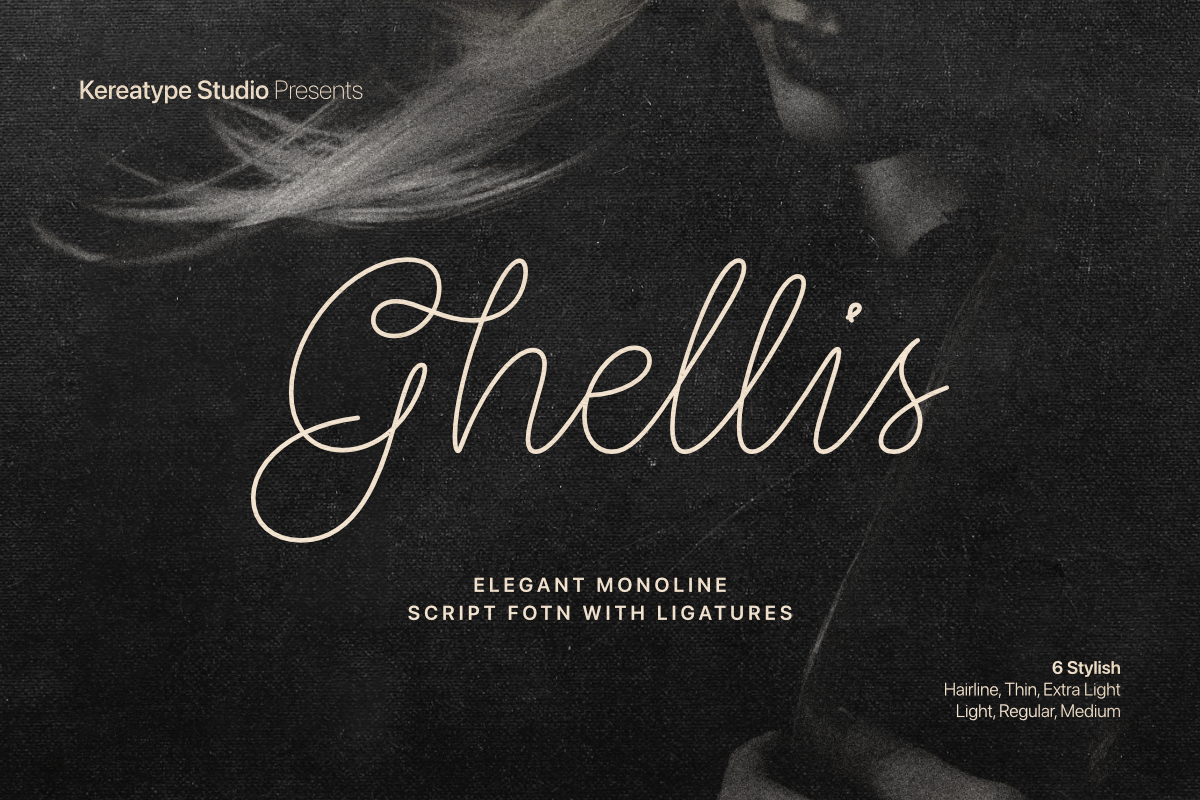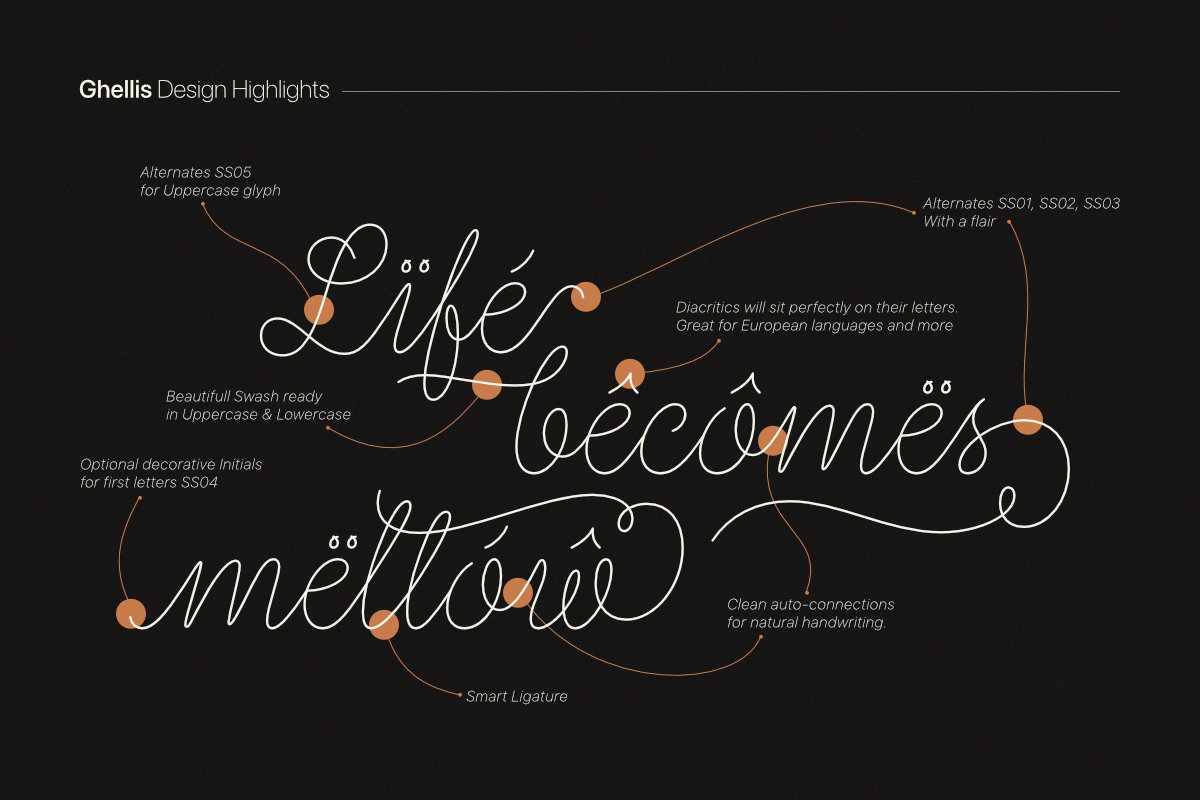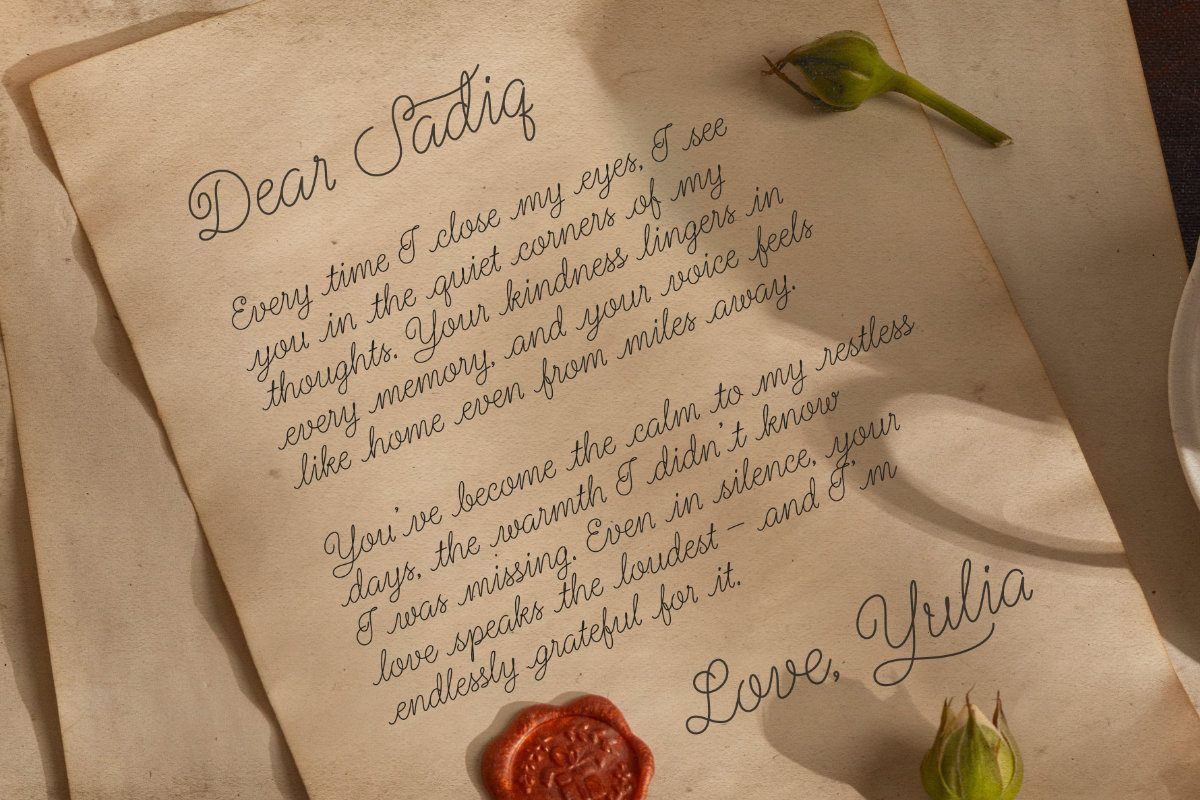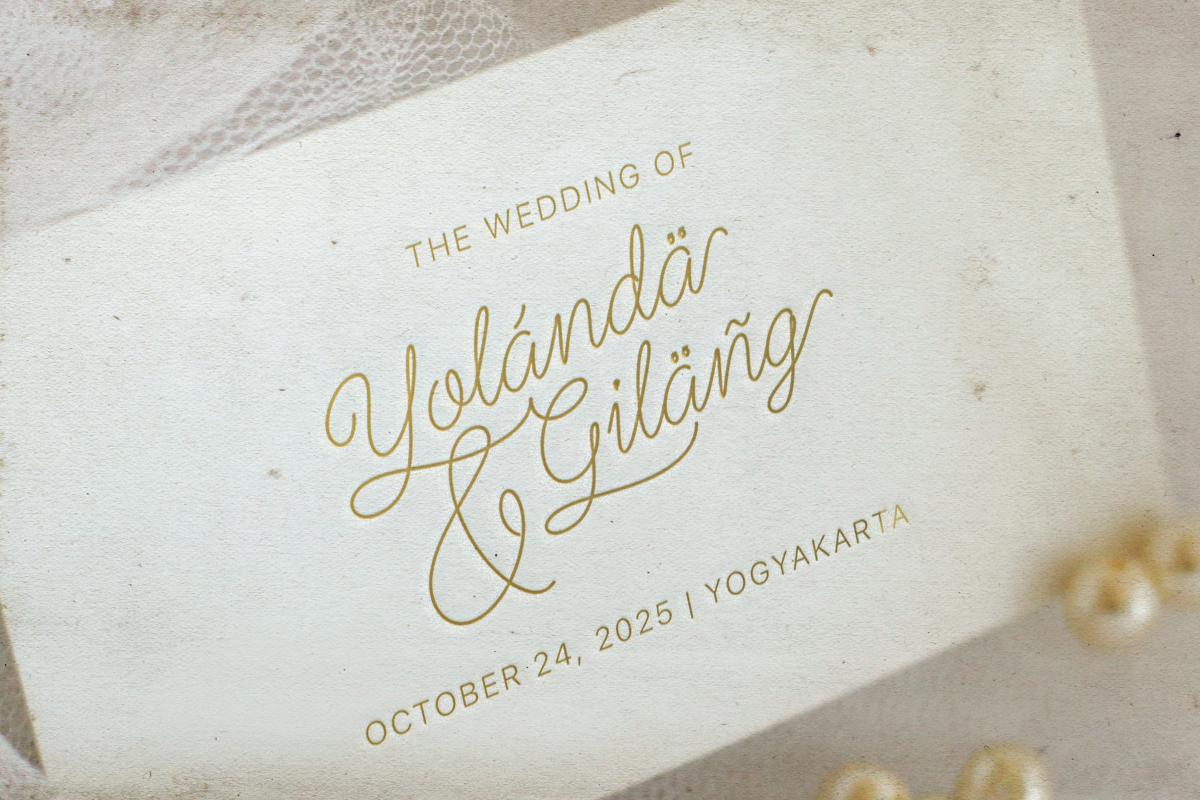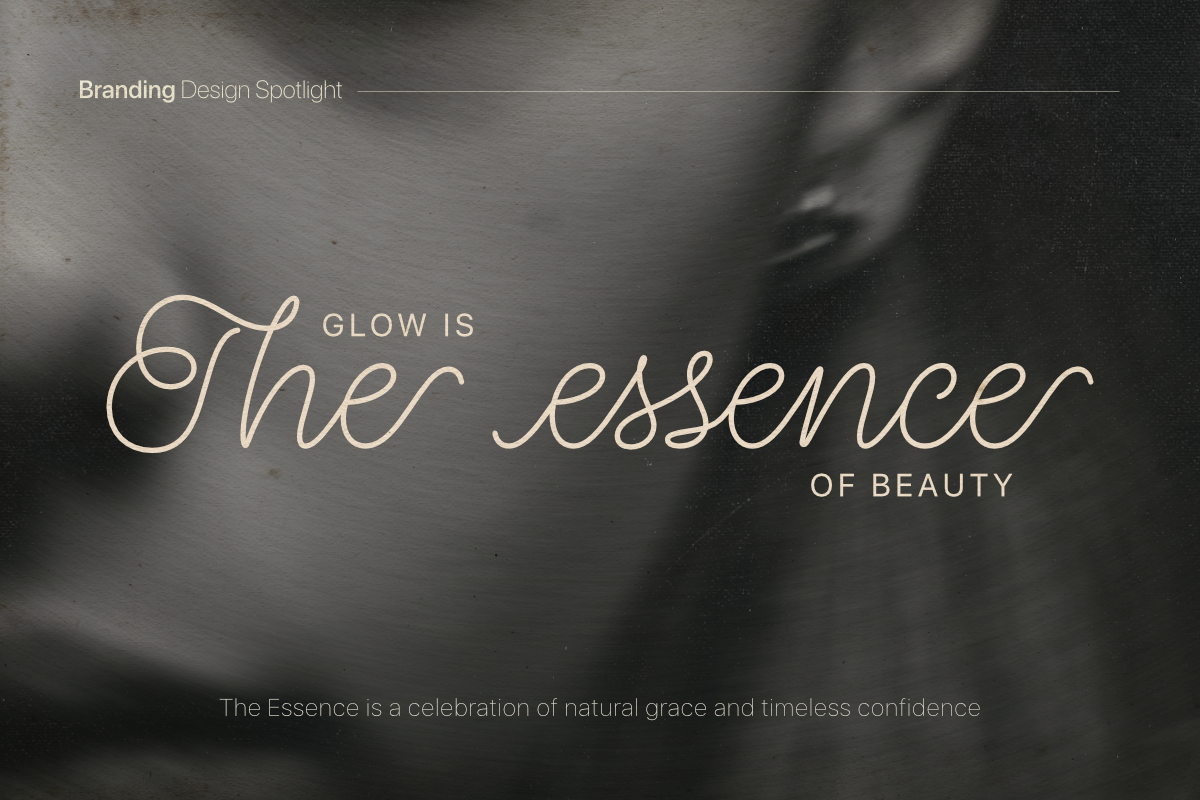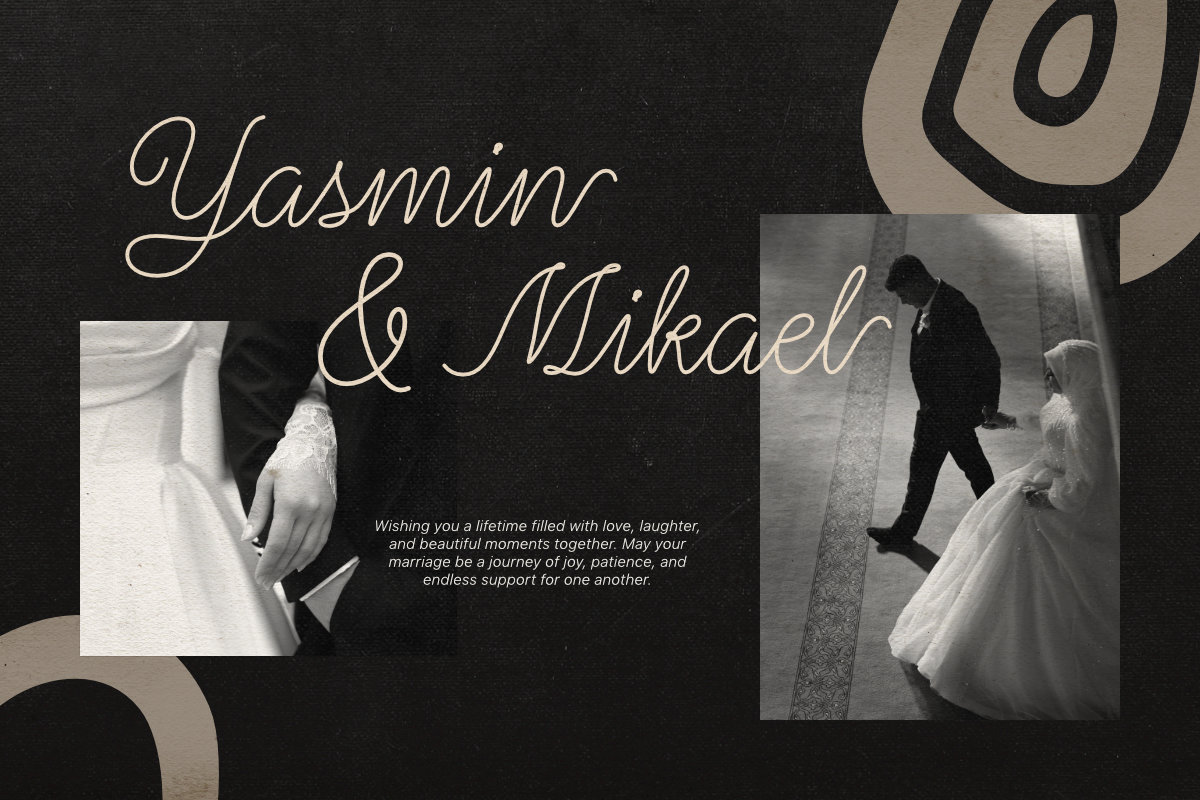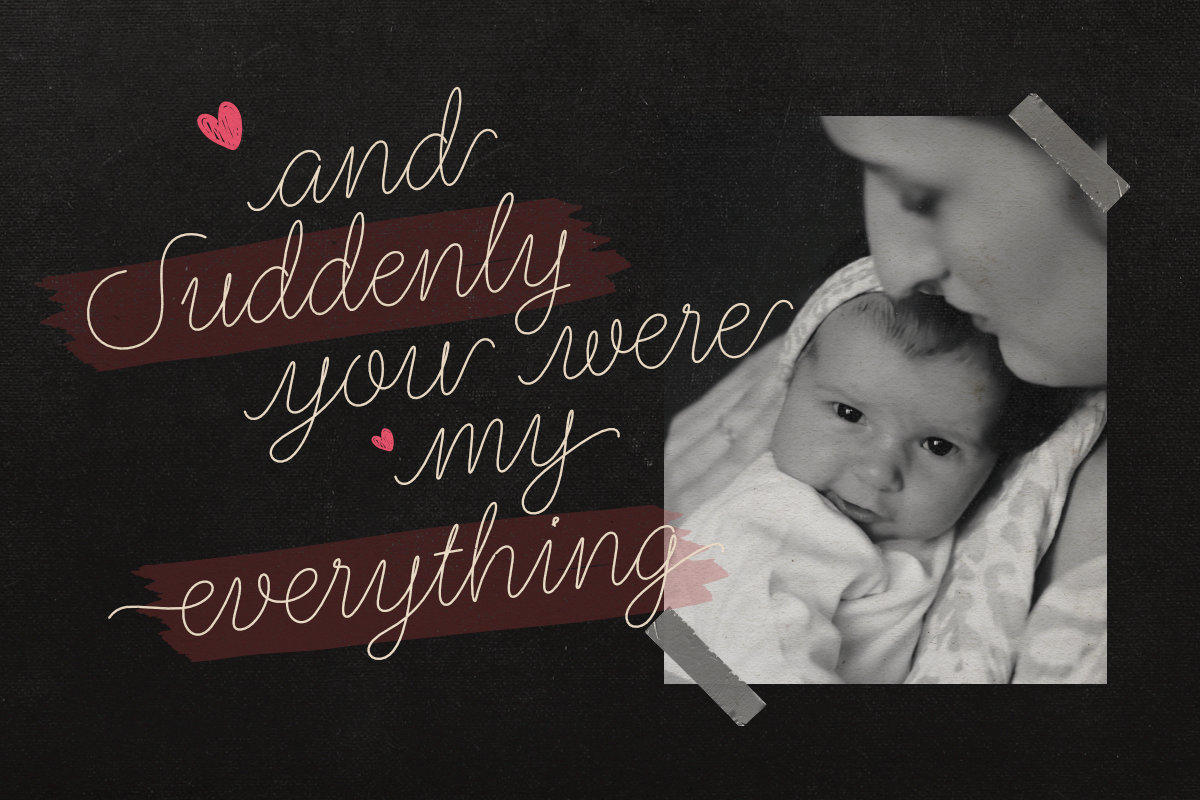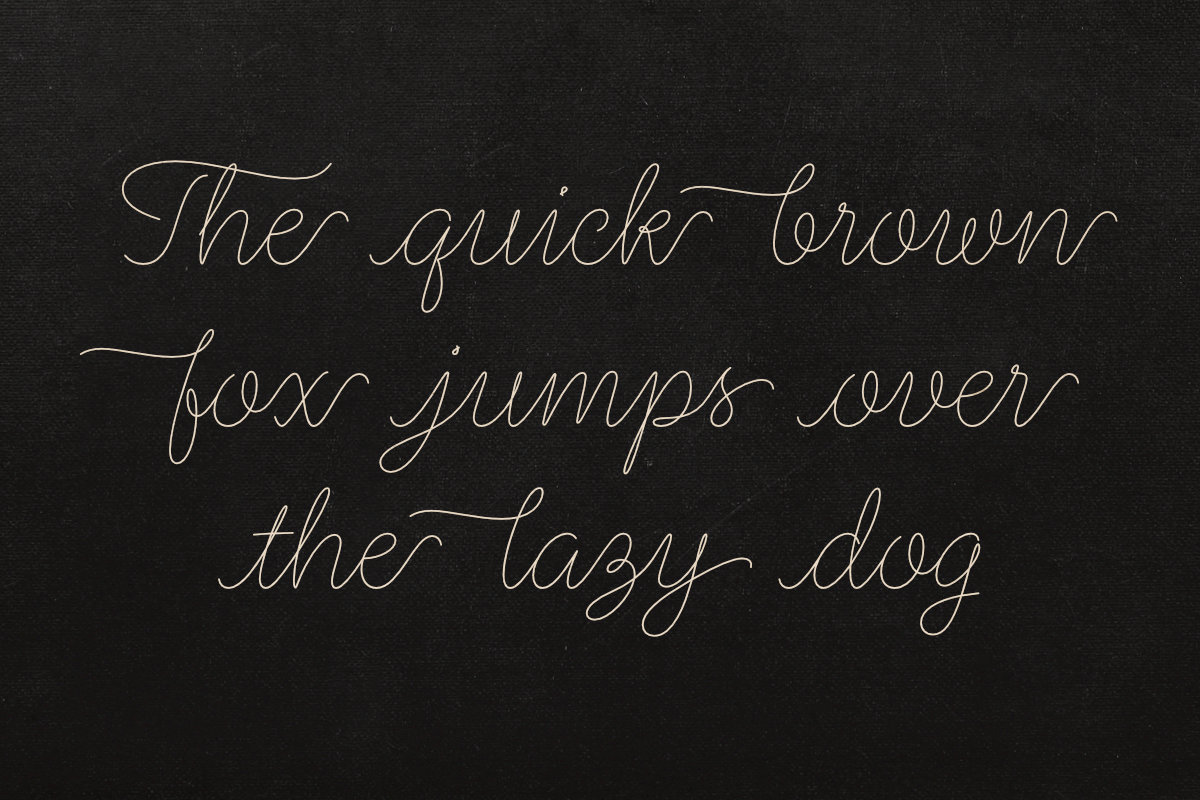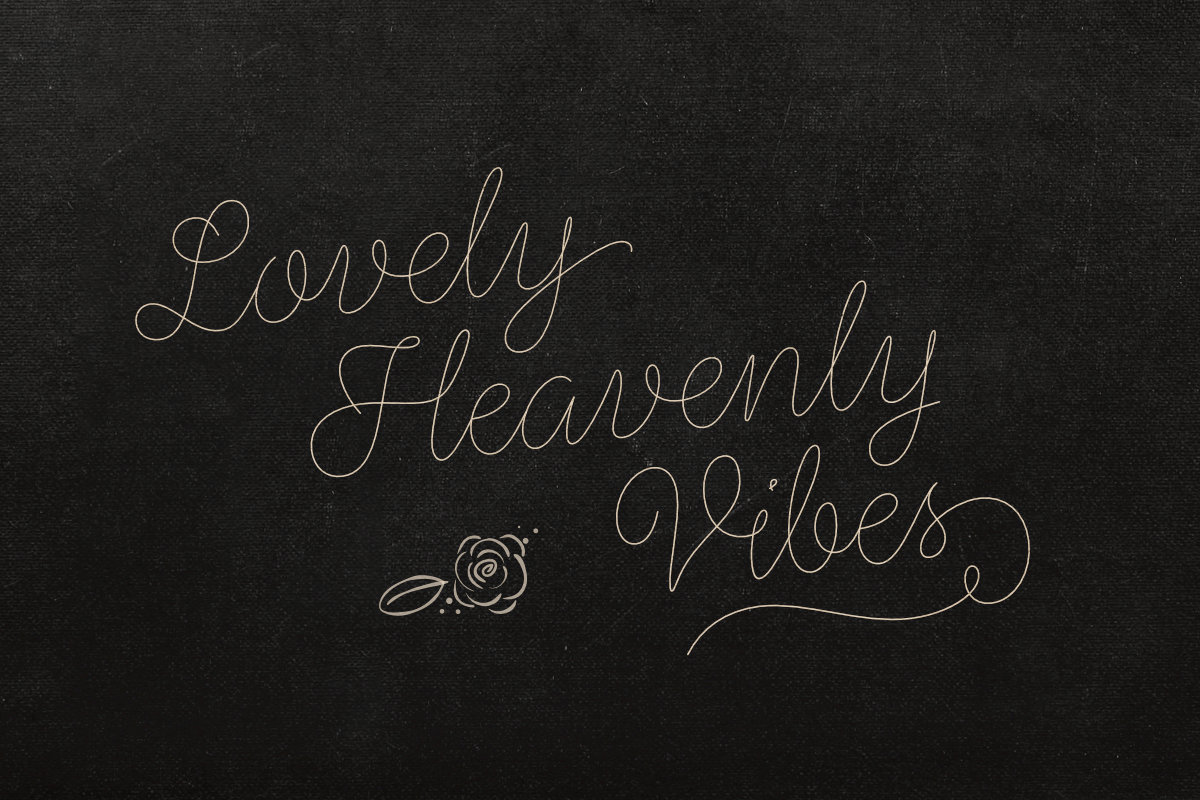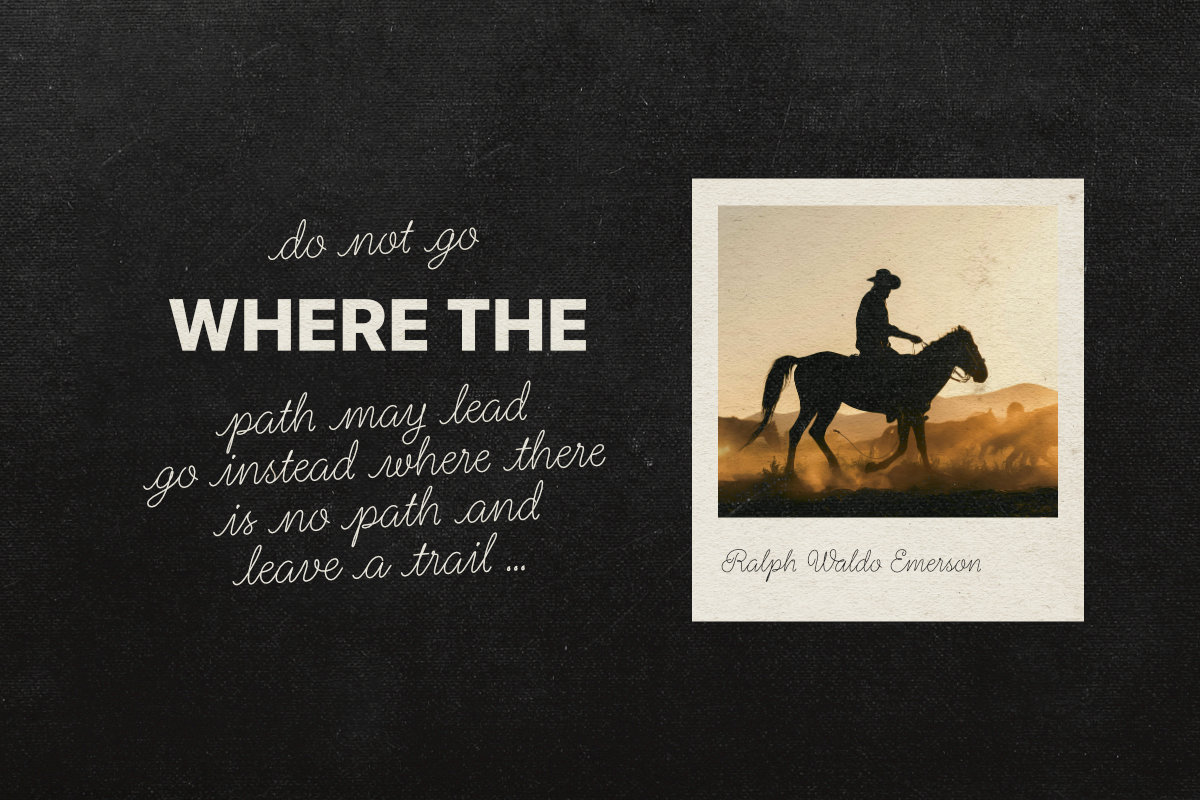
Ghellis
An Elegant Monoline Script Family With Six Refined Weights Perfect For Luxury Branding, Wedding Invitations, And Sophisticated Typography.
Ghellis is a sophisticated monoline script font family that captures the flowing elegance of natural handwriting with effortless grace
Elegant Monoline Minimalist Handwritten Script
Ghellis is a sophisticated monoline script font family that captures the flowing elegance of natural handwriting with effortless grace. Available in six refined weights from Hairline to Medium, it offers a perfect balance of modern simplicity and timeless luxury. With over 100 ligatures, diverse stylistic alternates, and decorative initials, Ghellis provides endless creative possibilities for high end branding, wedding invitations, and editorial layouts. Complete with full multilingual support, this versatile typeface ensures that every word from luxury logos to heartfelt quotes radiates a delicate, polished, and professional charm.
Elegant Monoline Minimalist Handwritten Script